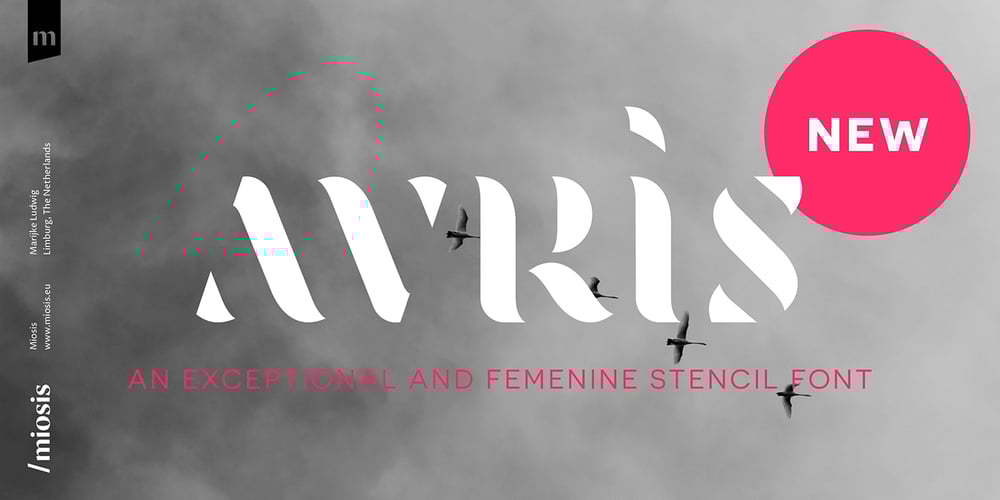
Avris
Avris font
Avris Font Family was designed by Marijke Ludwig and published by Miosis. Avris contains 1 styles and family package options. This is Avris, an exceptional and feminine stencil font. The base was designed in 2015. The word ‘avris’ derives from the latin rara avis, which means “rare bird”. Stencil fonts were initially designed for mass production and transportation companies. Unlike this one, Avris’ curvy and minimalistic design feels and looks like the wings of birds, flying above the quiet ocean. It also has a roman, calligraphic and cryptographic touch to it. It can be used for editorial (fashion) magazines and poster designs. Looks great in headlines! Also the numerals are a must see when you put it in use.